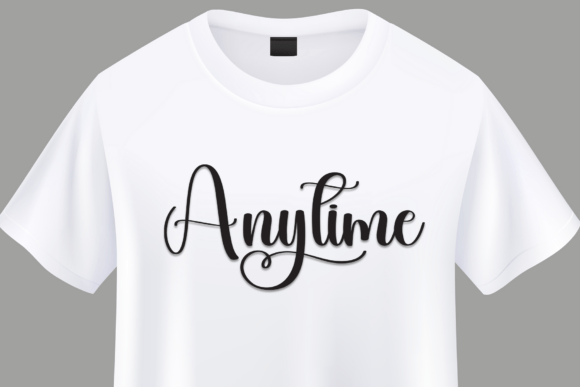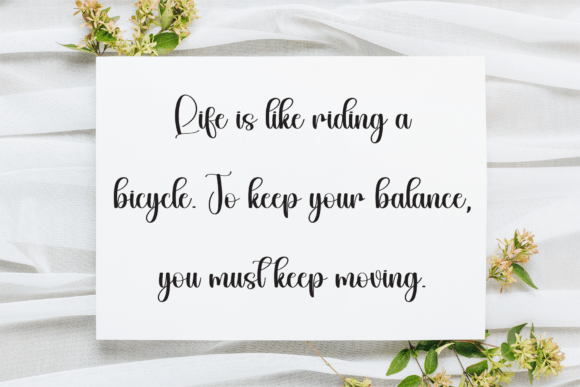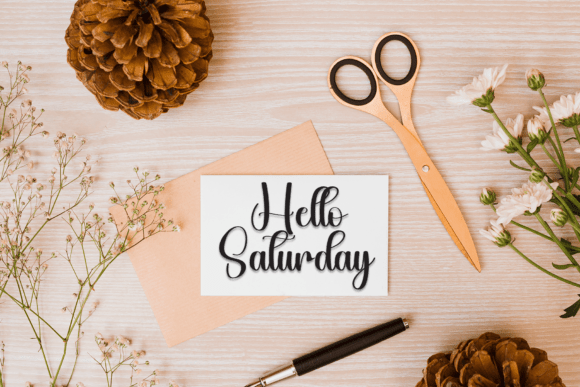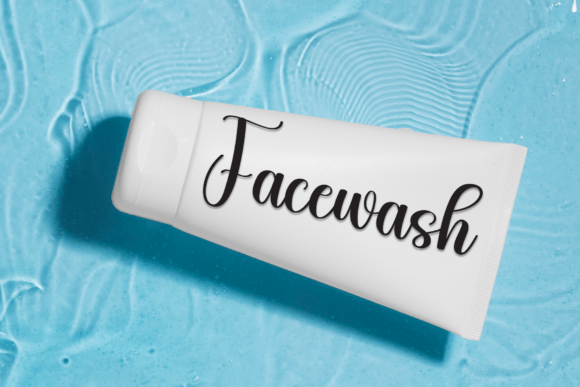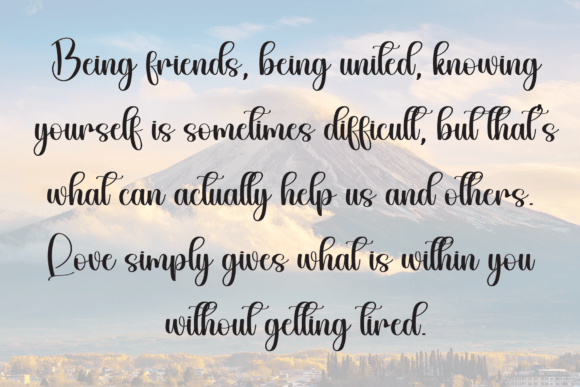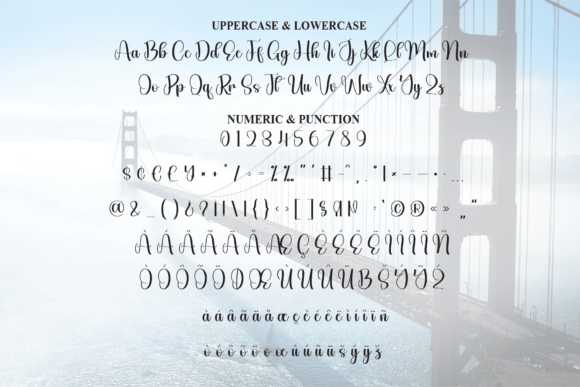
Bridges Font: Elevate Your Designs with Elegance and Fluidity
In the world of typography, few fonts manage to strike a balance between elegance, fluidity, and modernity. Bridges Font is one such exceptional typeface that has captured the hearts of designers and crafters alike. This stylish handwritten script font is designed to add a touch of sophistication and charm to any design, making it perfect for branding, invitations, and creative projects.
The Characteristics of Bridges Font
Bridges Font boasts smooth, flowing strokes that create a natural and sophisticated feel. Its elegant curves and refined lines make it an ideal choice for designers looking to add a personal, artistic touch to their work. The font’s fluidity is evident in its seamless connections and harmonious letter spacing, which give it a cohesive and polished look.
Why Choose Bridges Font?
So, what sets Bridges Font apart from other typefaces? Here are a few compelling reasons why designers and crafters love this font:
- Elegance and Sophistication: Bridges Font exudes a sense of luxury and refinement, making it perfect for high-end branding, wedding invitations, and other special occasions.
- Fluidity and Harmony: The font’s smooth strokes and seamless connections create a natural flow that is both visually appealing and easy to read.
- Versatility: Bridges Font can be used for a wide range of design projects, from logos and branding to invitations, packaging, and more.
- Unique and Artistic: This font adds a personal touch to any design, making it stand out from more traditional typefaces.
Bridges Font is an excellent choice for designers and crafters working on creative projects. Whether you’re designing a logo, creating a brand identity, or crafting a beautiful invitation, this font is sure to impress. Its elegant and sophisticated feel makes it perfect for:
- Wedding Invitations: Add a touch of luxury and romance to your wedding invitations with Bridges Font.
- Branding and Logos: Create a lasting impression with a custom logo or brand identity that showcases your unique style.
- Packaging Design: Elevate your packaging design with a sophisticated and eye-catching font that sets your product apart.
Tips for Using Bridges Font
To get the most out of Bridges Font, here are a few tips to keep in mind:
- Pair with Contrasting Fonts: Combine Bridges Font with a contrasting font to create visual interest and hierarchy in your design.
- Experiment with Colors: Try pairing Bridges Font with different colors to create a unique and eye-catching effect.
- Use for Headings and Titles: Bridges Font is perfect for headings and titles, where its elegance and sophistication can shine.
Bridges Font is a stylish and elegant handwritten script font that is sure to elevate your designs. Its smooth, flowing strokes and refined lines make it perfect for branding, invitations, and creative projects. With its unique blend of charm and modernity, this typeface is an excellent choice for designers and crafters looking to add a personal, artistic touch to their work. So why wait? Discover the beauty of Bridges Font and take your designs to the next level.